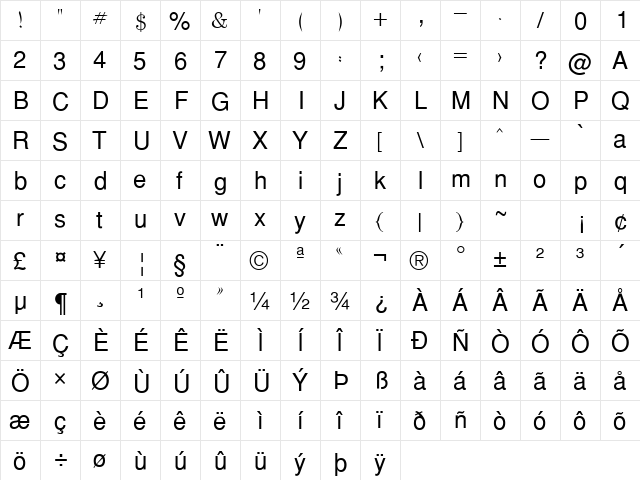
WinSoft Thuluth Pro Light
| Foundry | WinSoft S. A. |
| Designer | Mourad Boutros |
Design Context for WinSoft Thuluth Pro Typeface
WinSoft Thuluth Pro offers clean, dependable letterforms without strong stylistic allegiance, making it a practical choice for designers who need flexibility. The delicate stroke weight brings airiness and refinement to layouts.